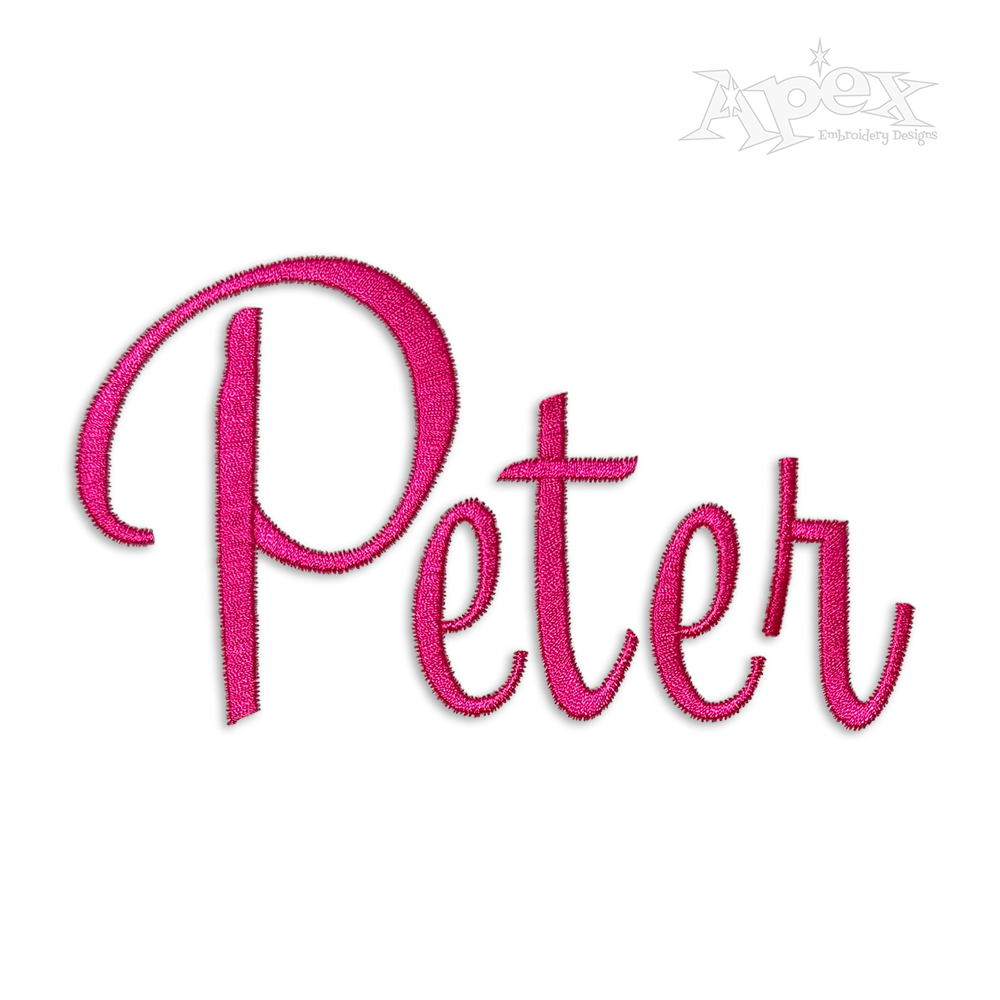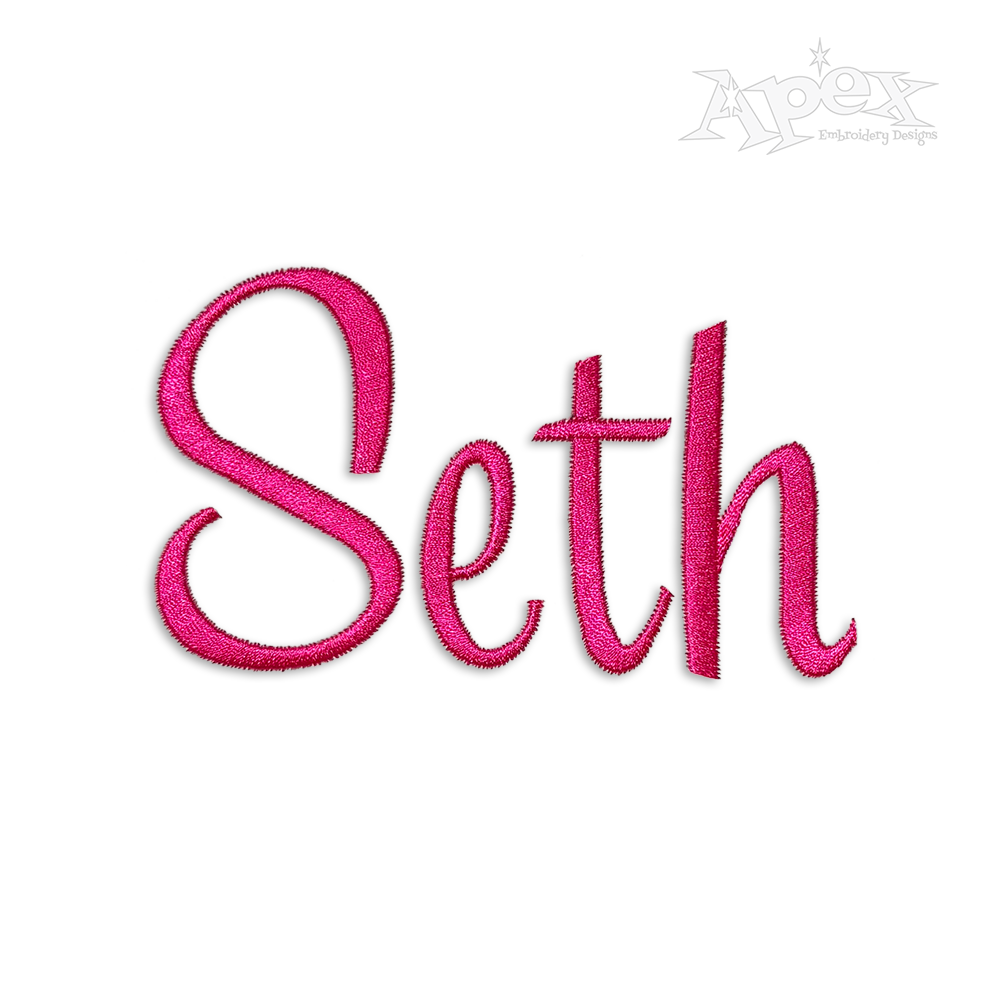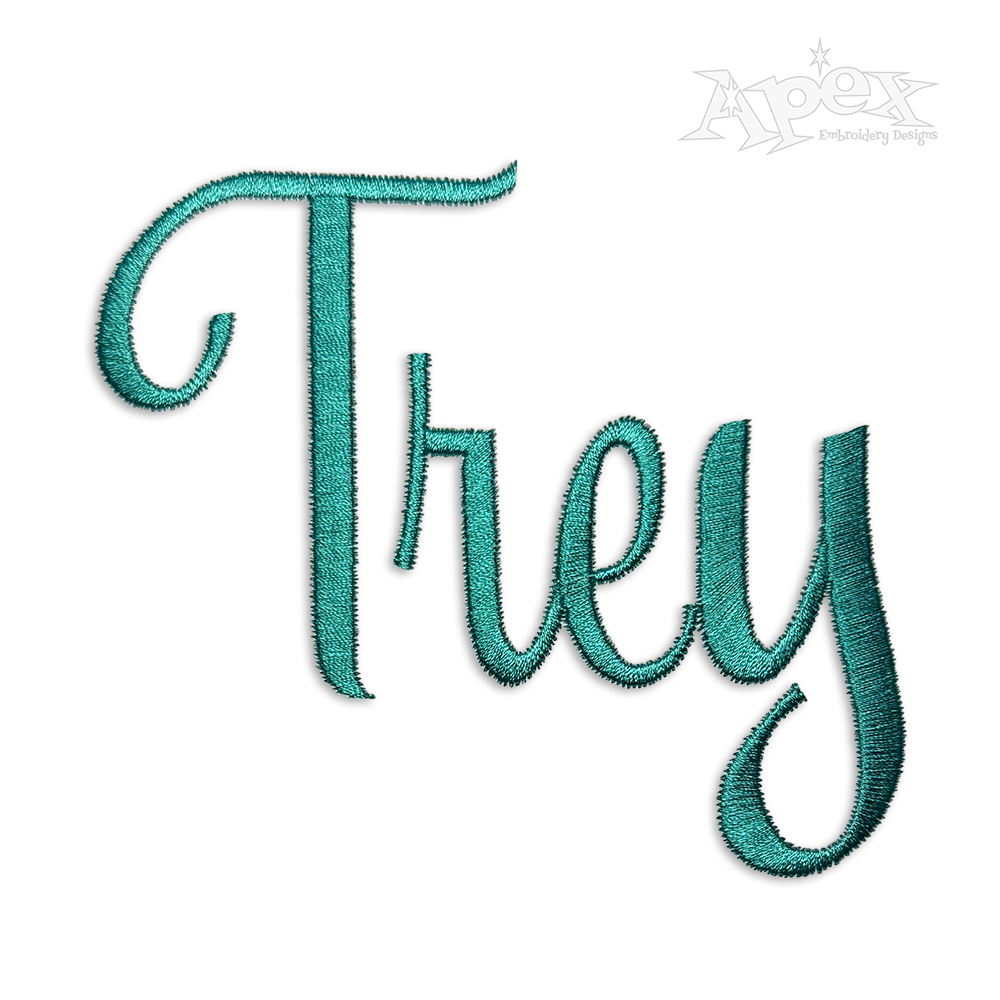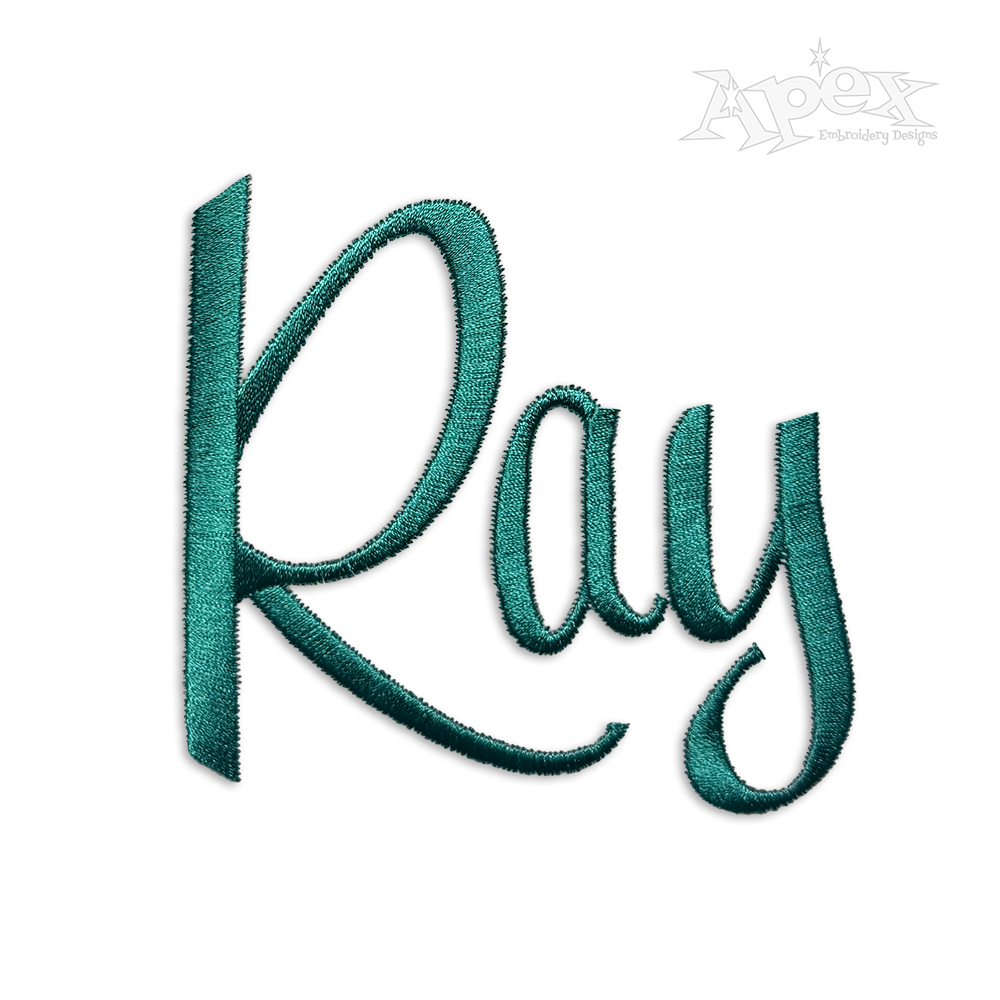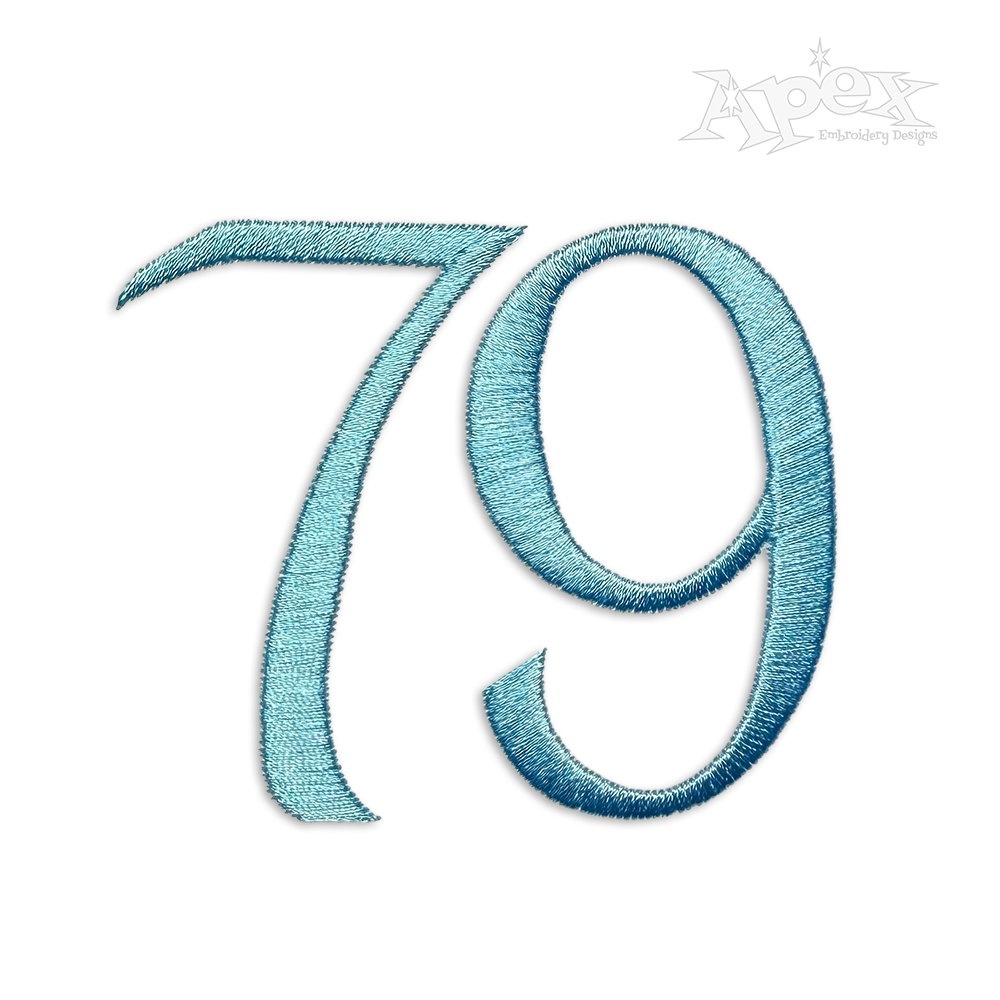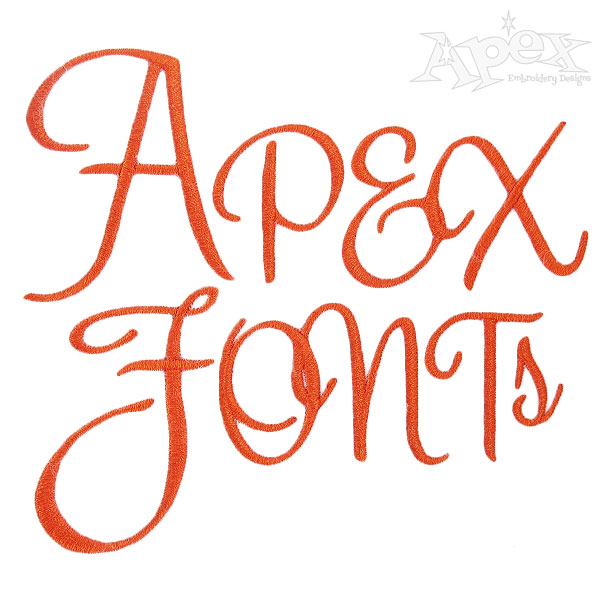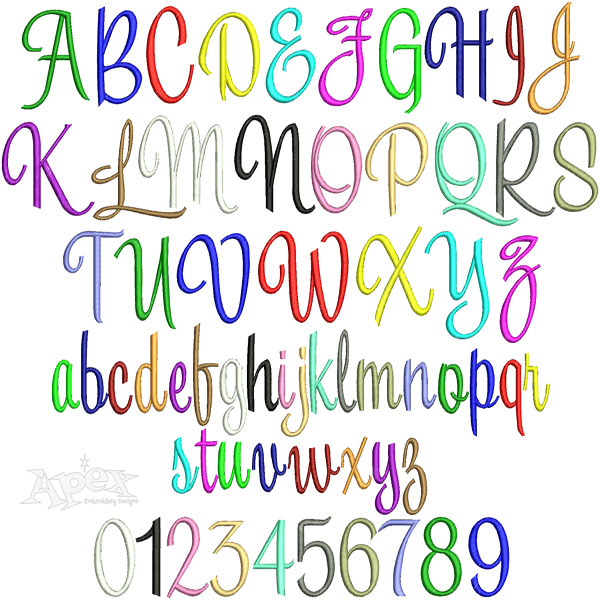
Pisgah Embroidery Font
Create fun letters inspired by the beautiful Pisgah National Forest in North Carolina. Clean readable script embroidery set is perfect for customizing hats, linens, towels, baby gifts, tote bags, and more. Included All Letters A-Z Upper and Lowercase files.
Pisgah Script embroidery font collection includes complete size sets with cursive script letters designed for creating stunning personalized names. Each font comes professionally digitized for smooth stitching and excellent embroidery results.
- Pisgah Script Font